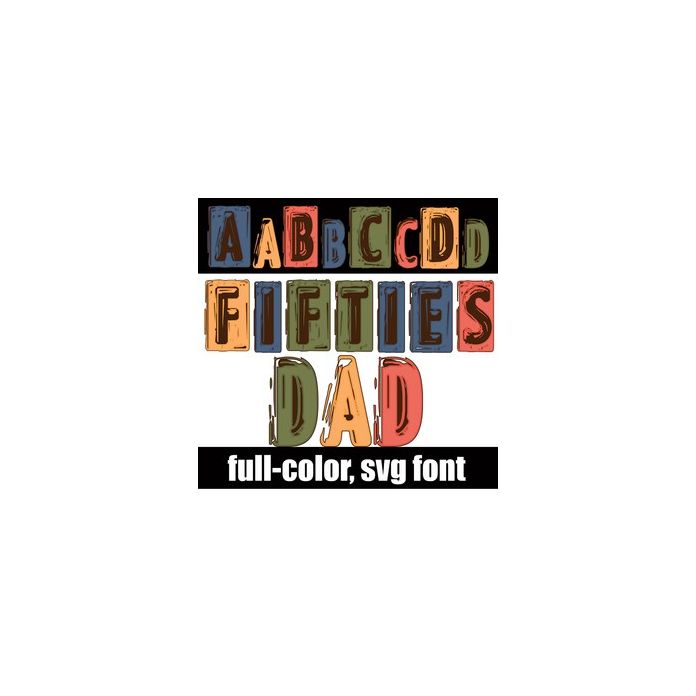
This full-color font features an old-tin style font in blocky lettering. There is an alt case w/ additional colors you can access through your system or Silhouette's glyph map.